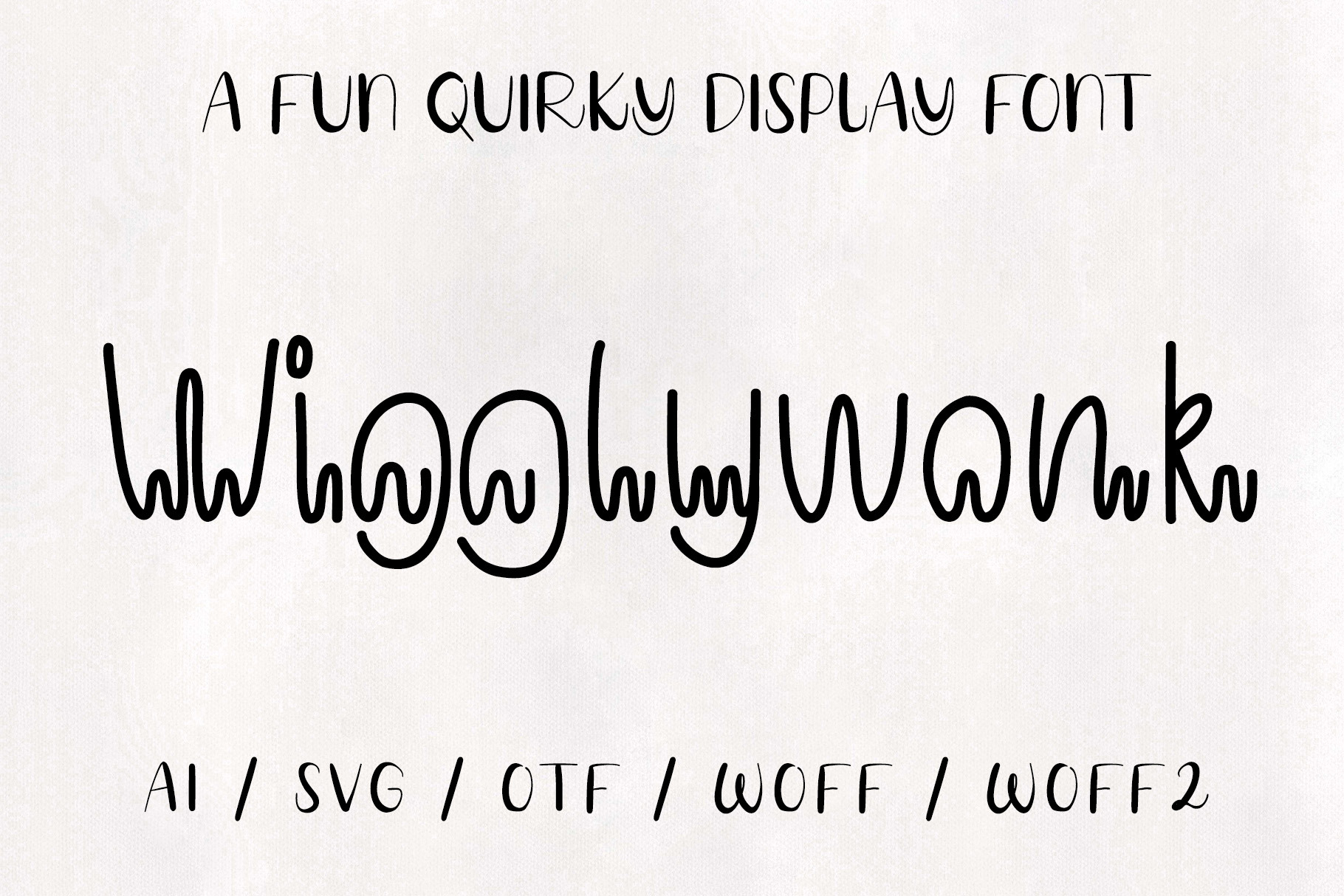
WigglyWonk Quirky Fun Display Font
WigglyWonk is a playful, quirky handcrafted vector display font which comes with additional ligatures and an extended set of punctuation and symbols. Wigglywonk is compatible with all softwares that run vector fonts and looks great both on screen and on print!